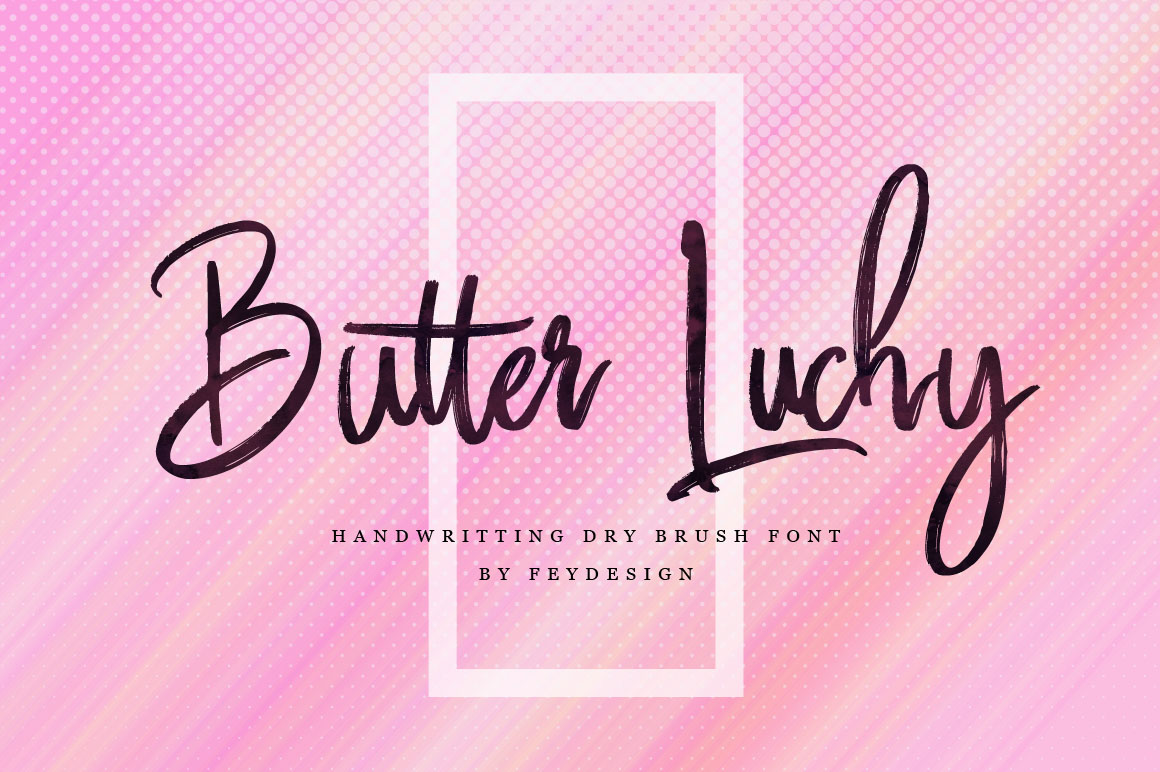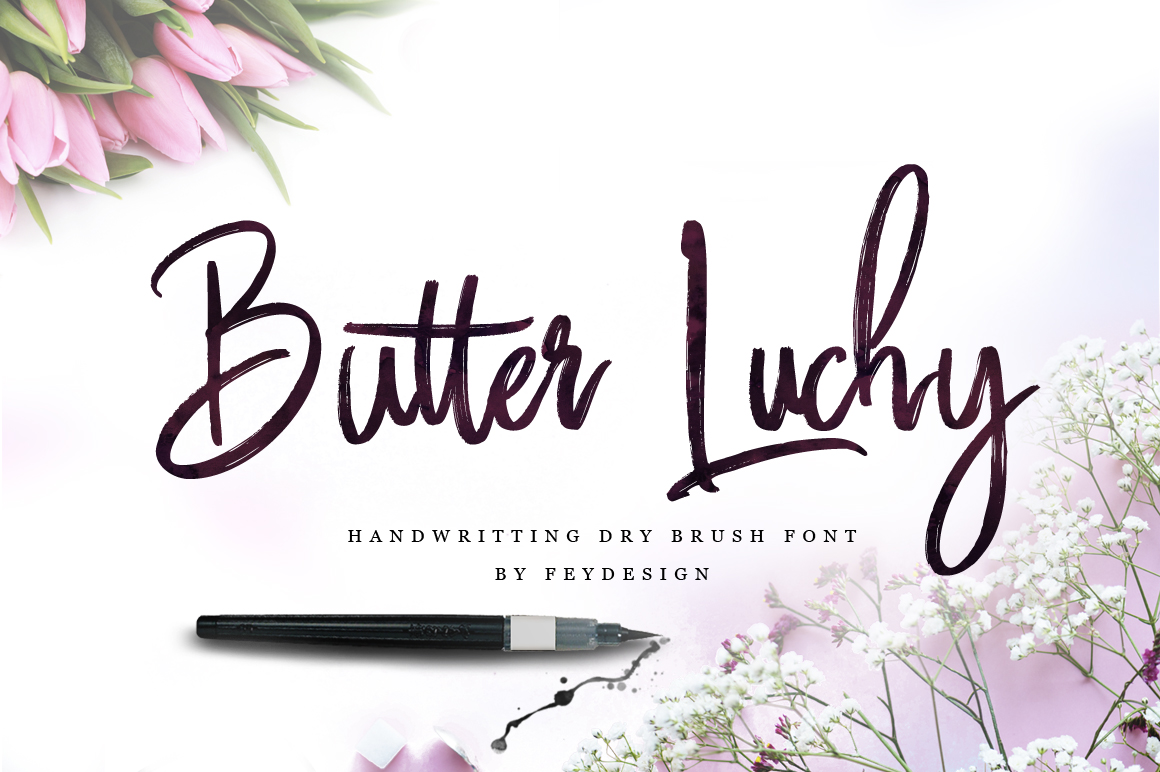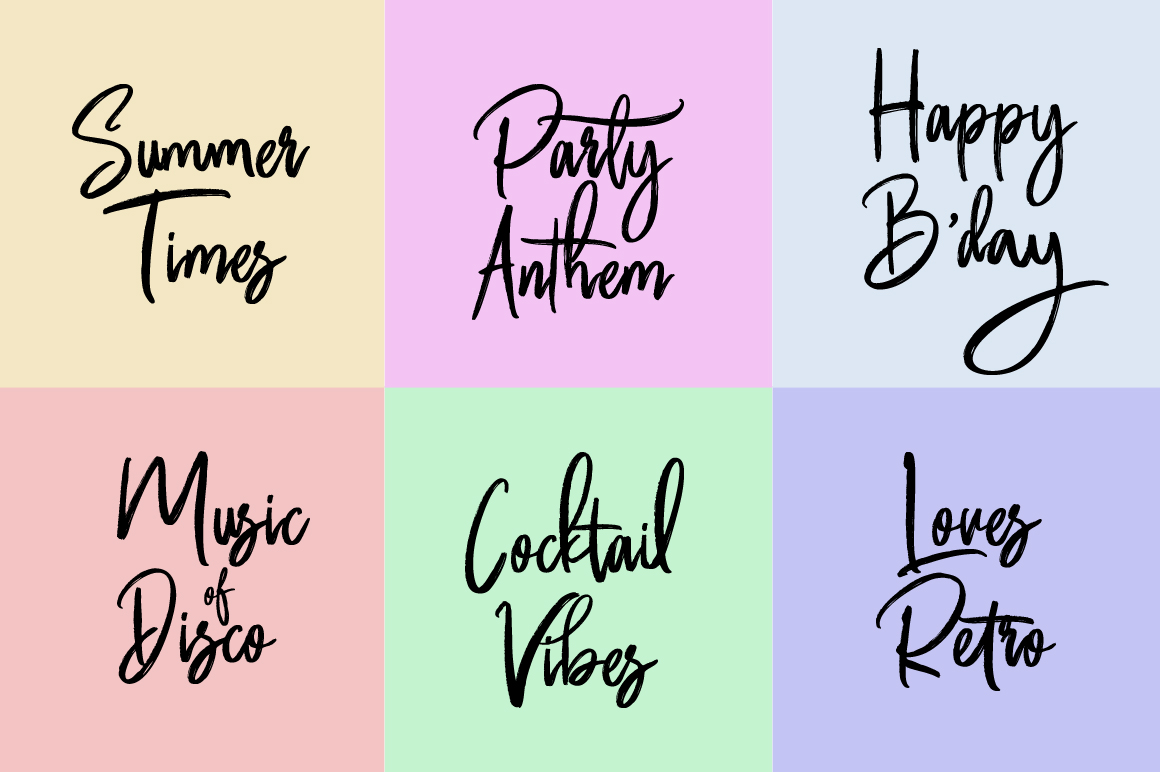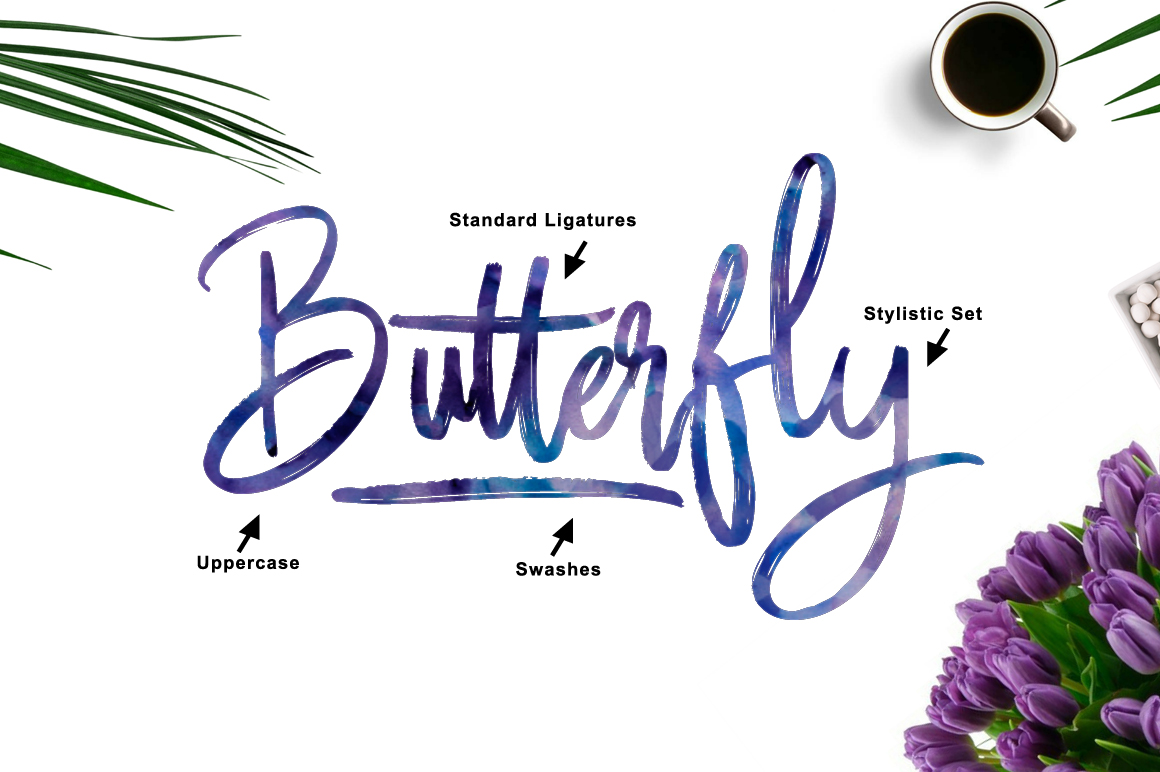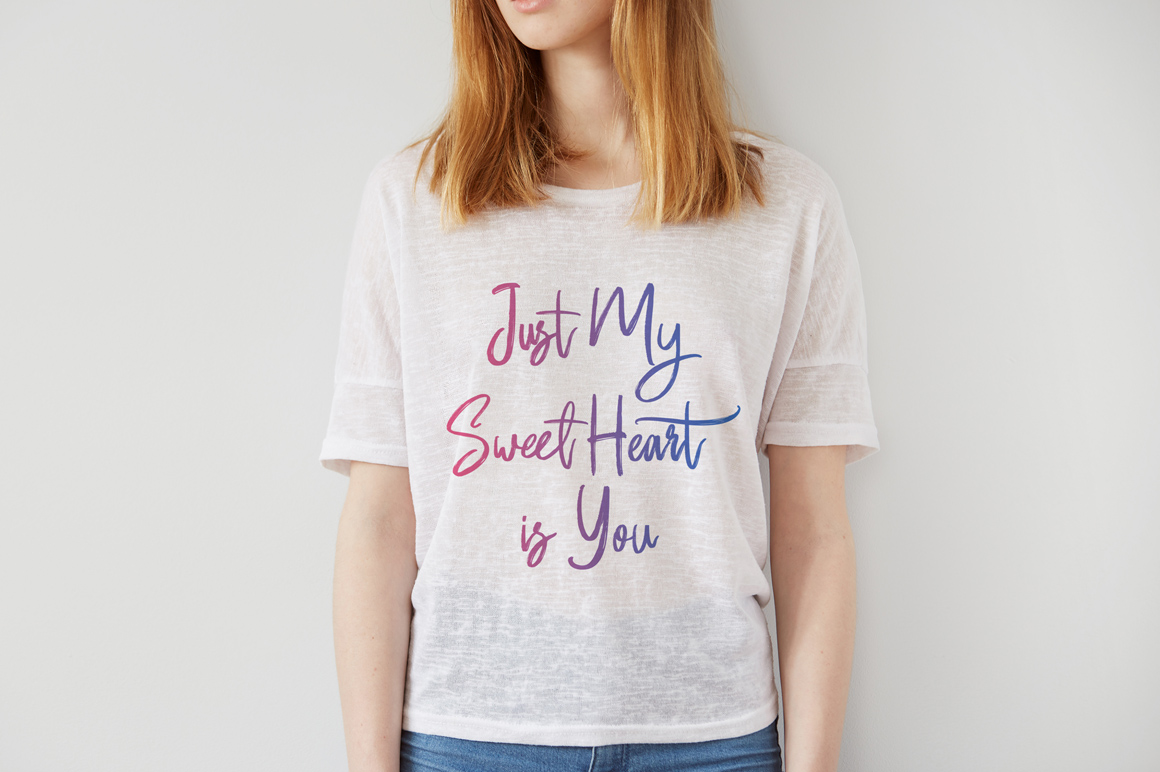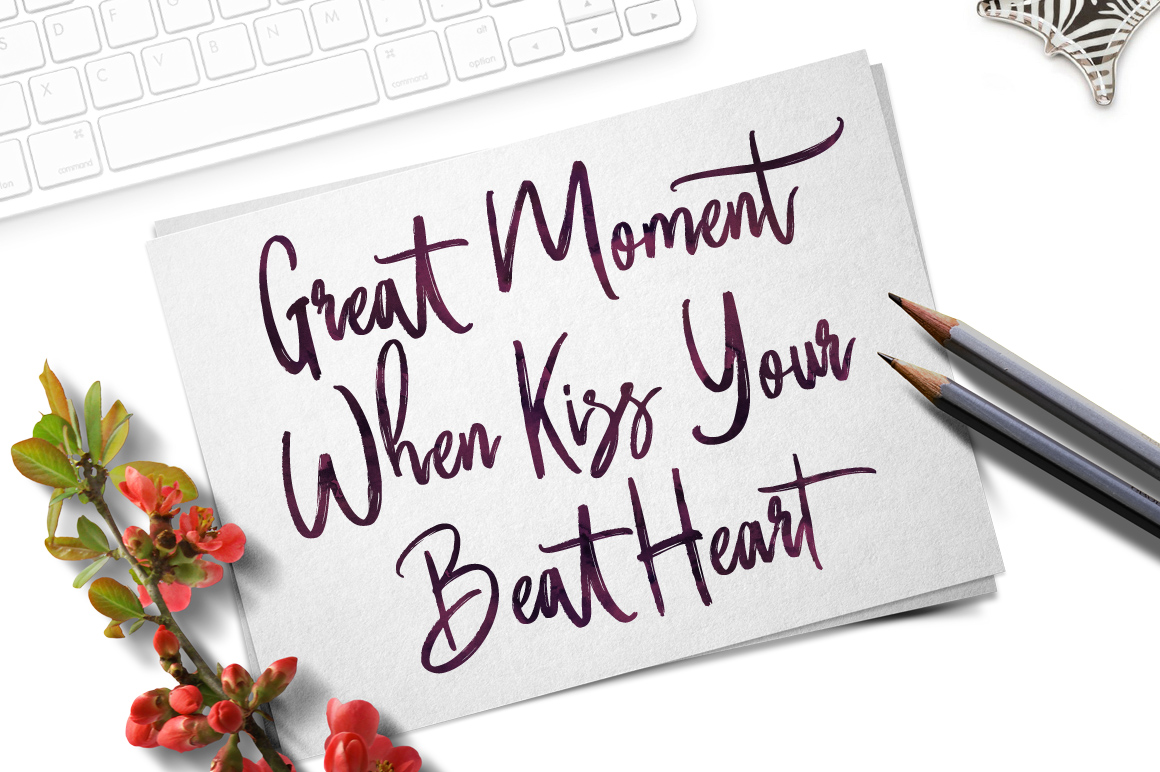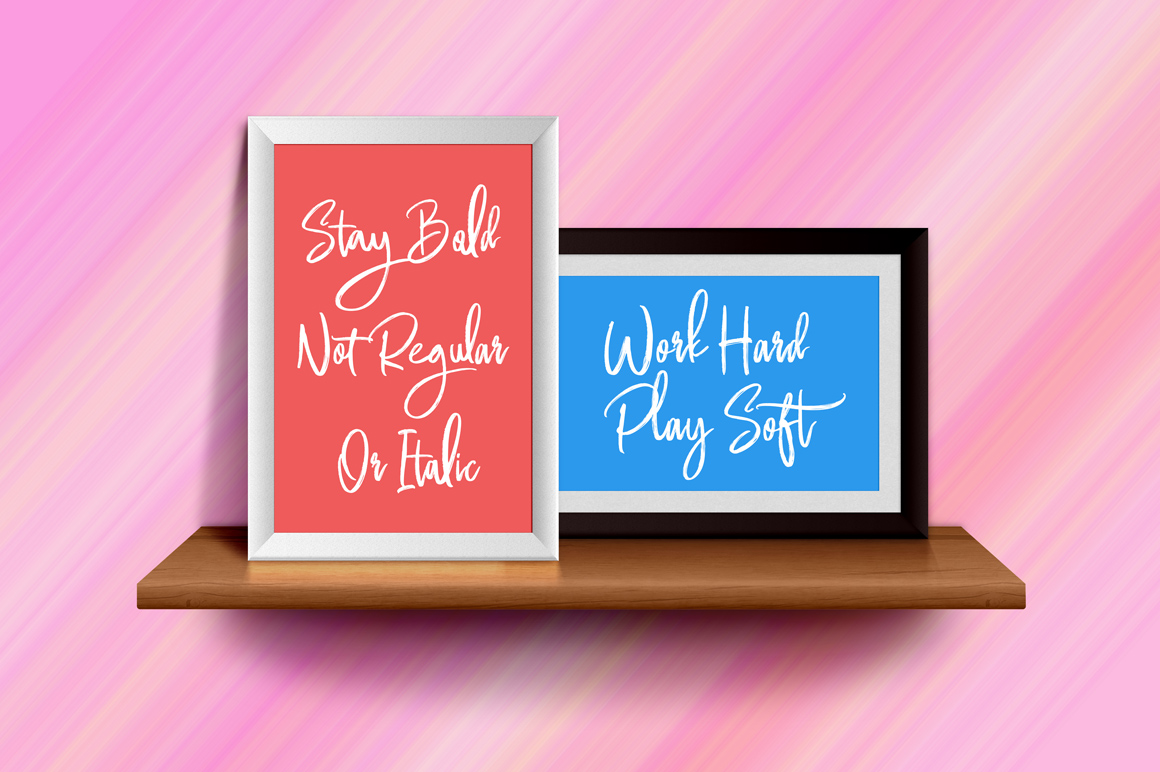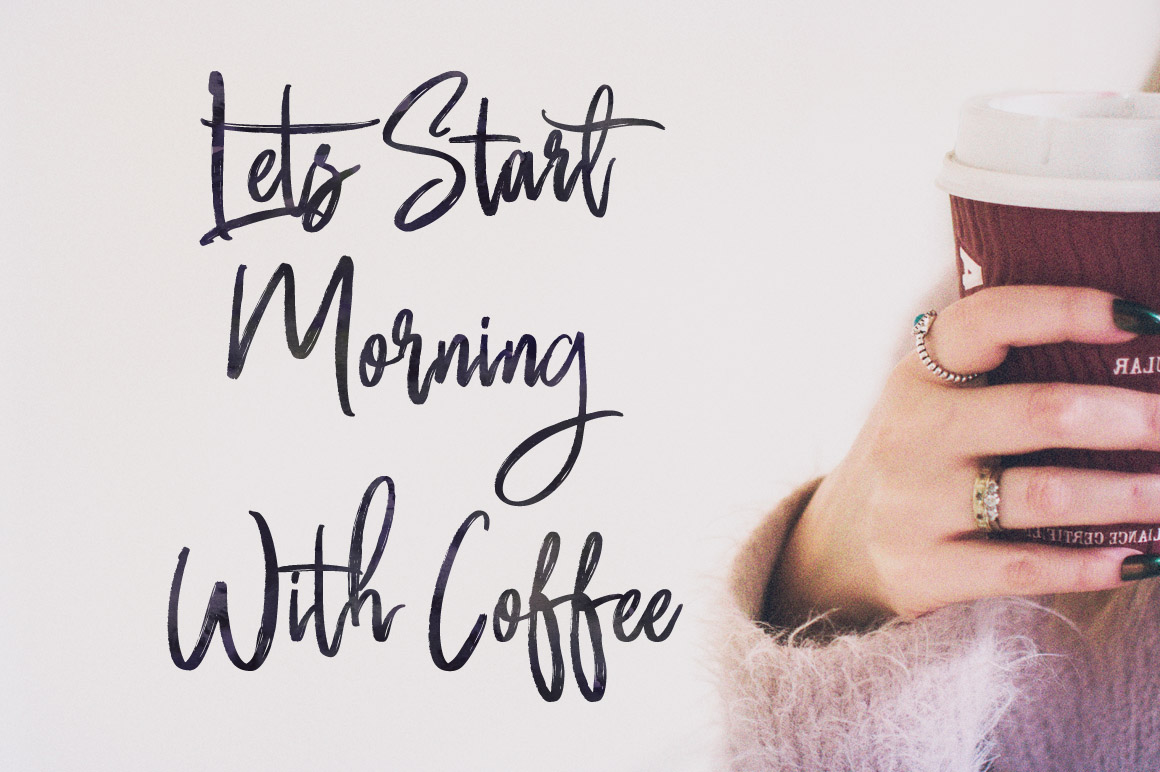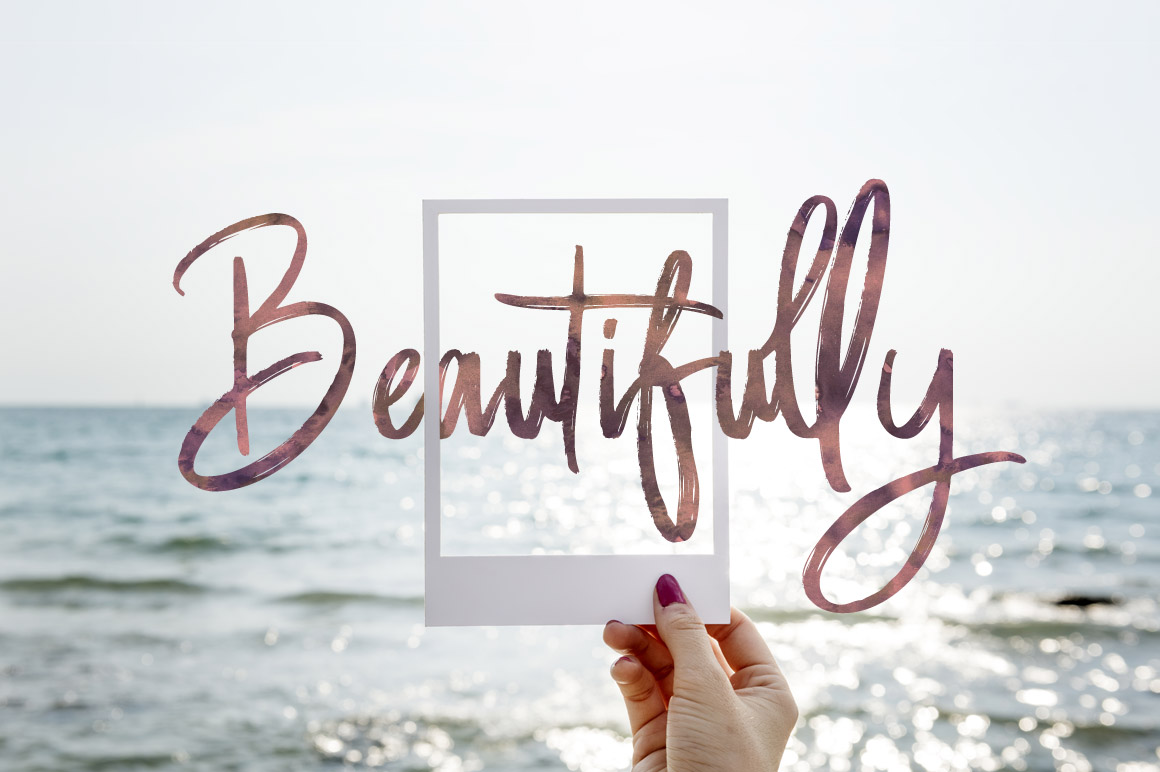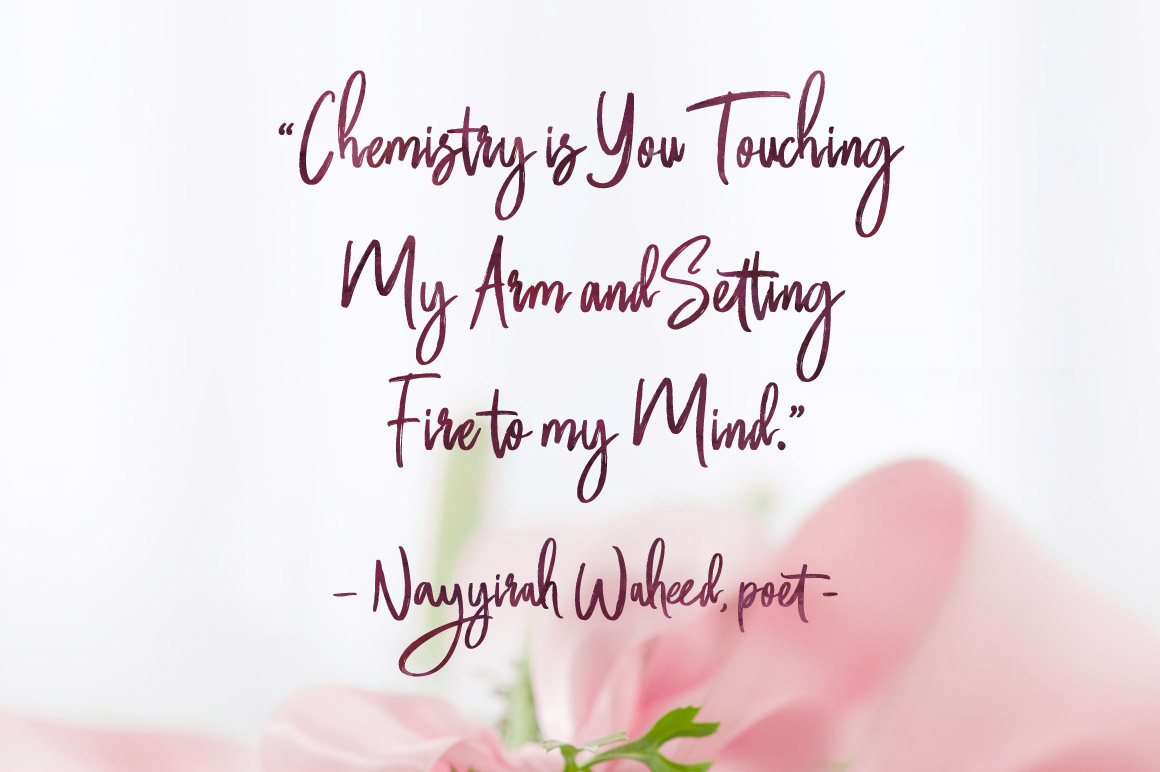
Butter Luchy Font
About Butter Luchy Font
Butter Luchy is a gorgeous and contemporary handwritten script font; this font is a great way to give your designs an on-trend vibe, and looks great on social media posts and more!